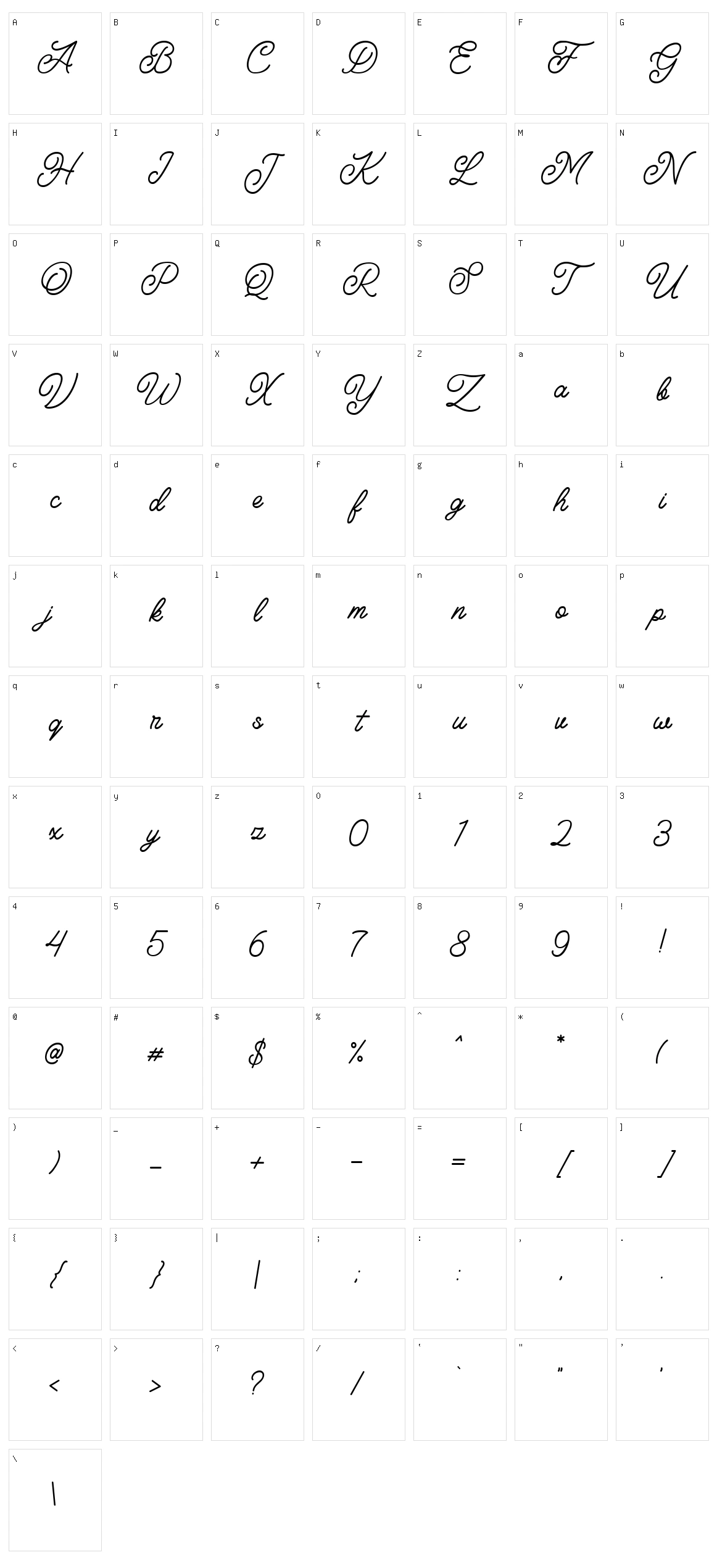
The free font Felician is carefully designed by Weape Studio, showcasing a thoughtful balance of creativity and usability and falls under the Script font style. When you download the ZIP file, it contains only 24.73 KB of font files, making it lightweight and quick to download. Please review the license details below to understand permitted usage and distribution rights. If license information is not available, we recommend using this font for personal projects only or contacting the author directly for commercial usage permissions.
Felician Monoline Script by Weape Design